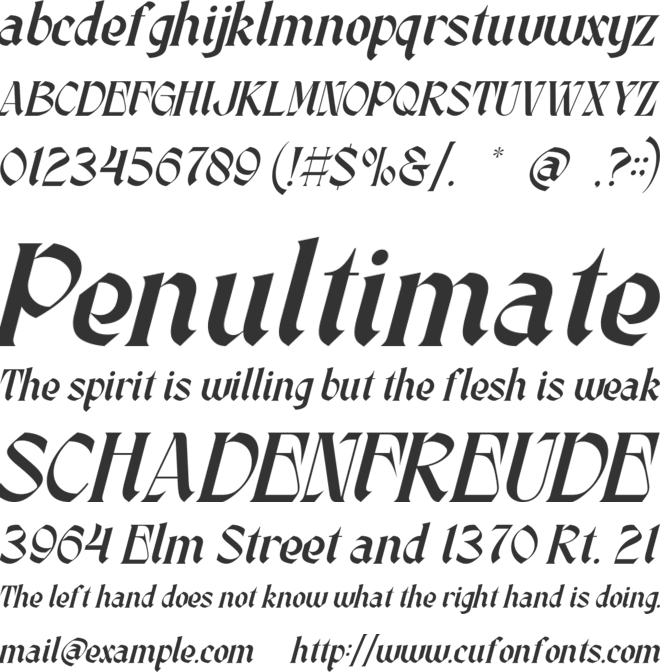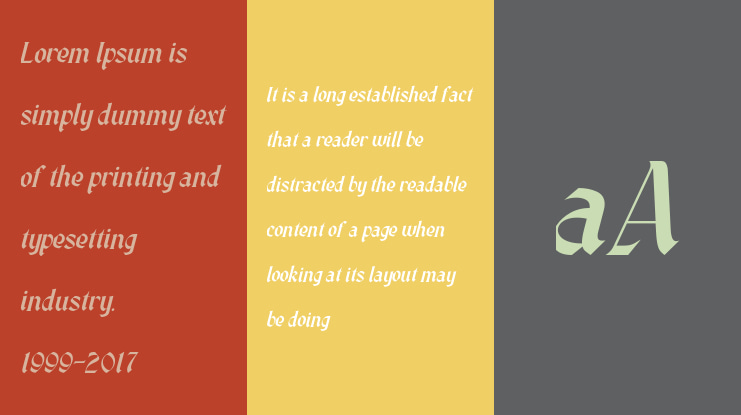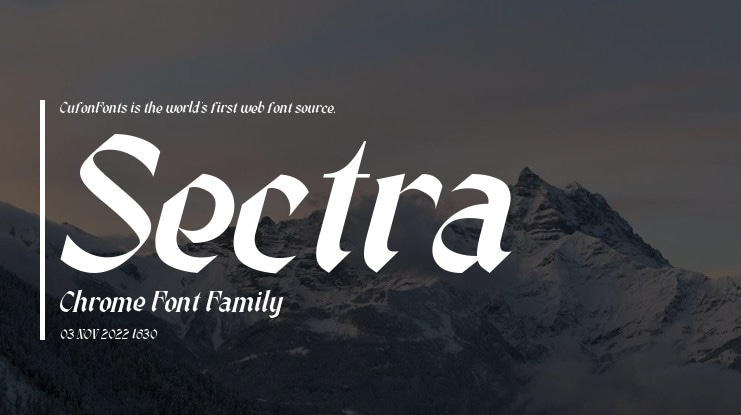
Sectra Chrome Font
Unleash the Dark Digital Renaissance.
Introducing Sectra Chrome, a typographic paradox that bridges the gap between medieval tradition and futuristic rebellion. This is not your average blackletter; it is a Modern Gothic masterpiece designed for the bold.
Sectra Chrome takes the sharp, rhythmic strokes of classic calligraphy and infuses them with the aggressive, polished energy of Y2K chrome aesthetics and acid graphics. It is sharp, intricate, and unapologetically distinct.
Why Sectra Chrome? Designed for visual dominance, Sectra Chrome is engineered to be the centerpiece of any design. Whether you are crafting high-end streetwear, heavy metal album covers, or edgy gaming branding, this font delivers a visual punch that demands attention.